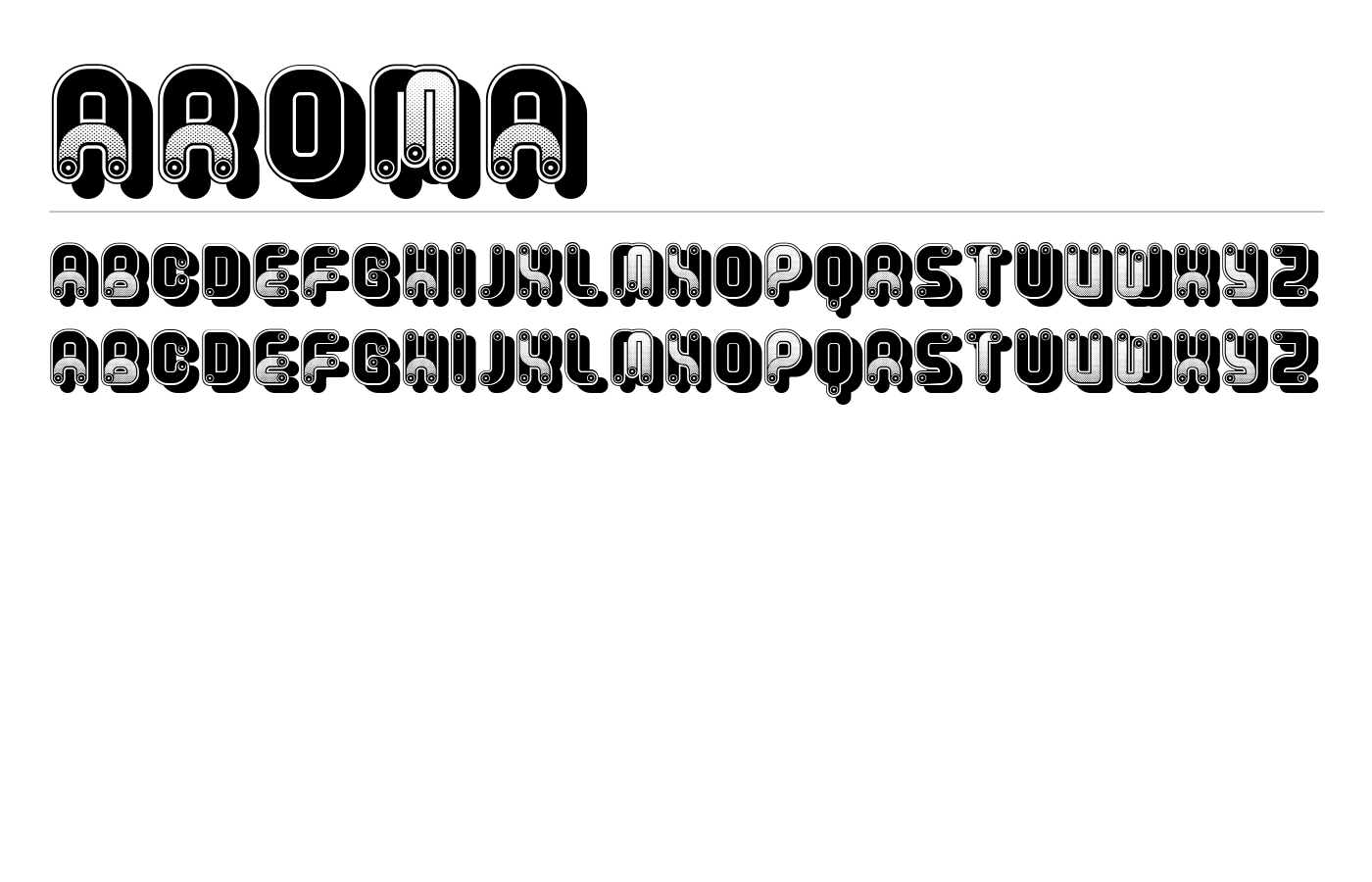
Aroma is a bold, decorative display font with a playful, retro vibe, featuring thick geometric letterforms accented by intricate dot and line patterns. Its strong presence and unique layered design make it perfect for eye-catching logos, posters, and branding that demands a fun, vintage-inspired look. This font adds a lively, artistic flair to any creative project that aims to stand out.
Aroma Font
About Aroma Font